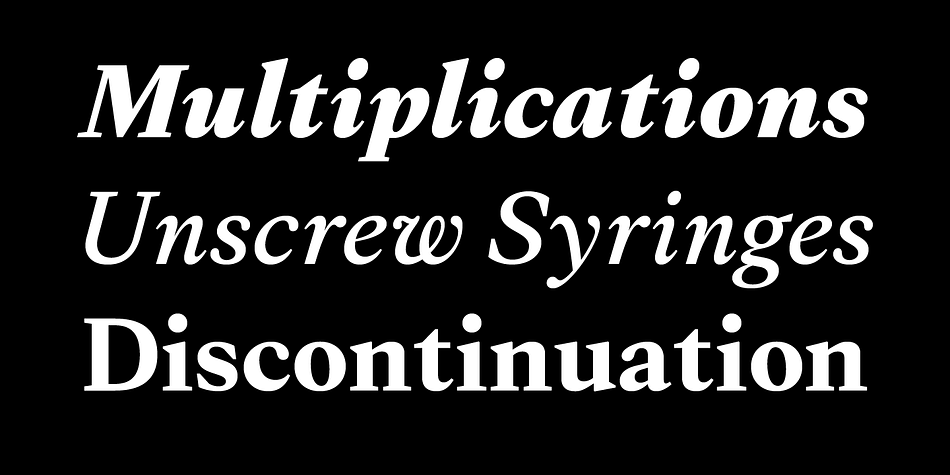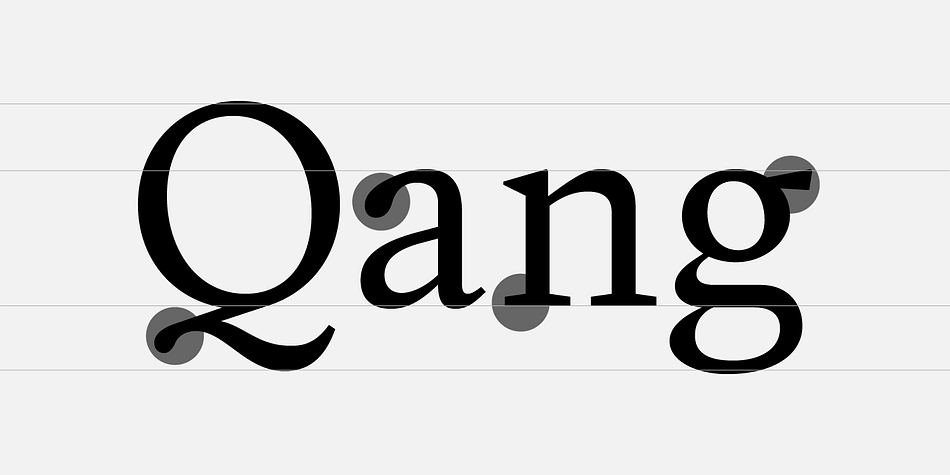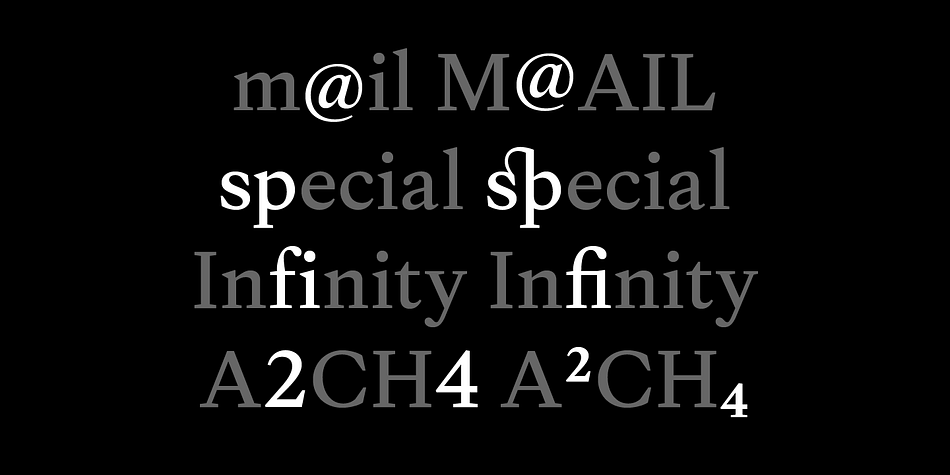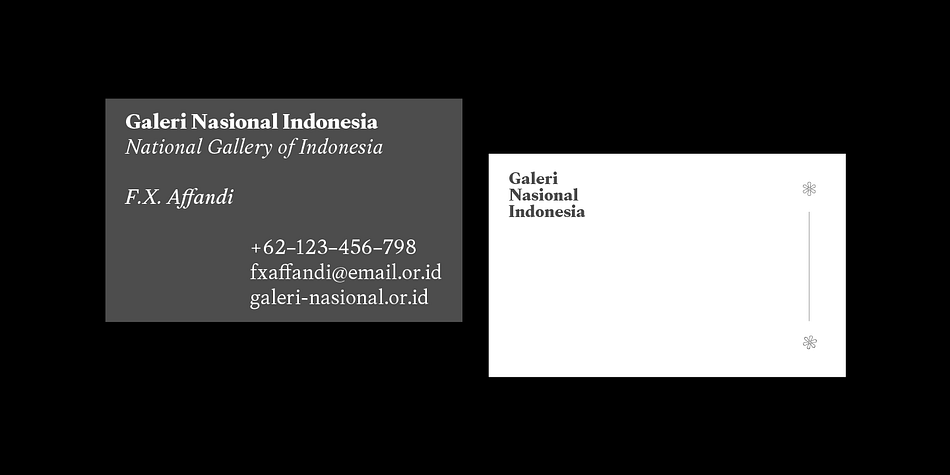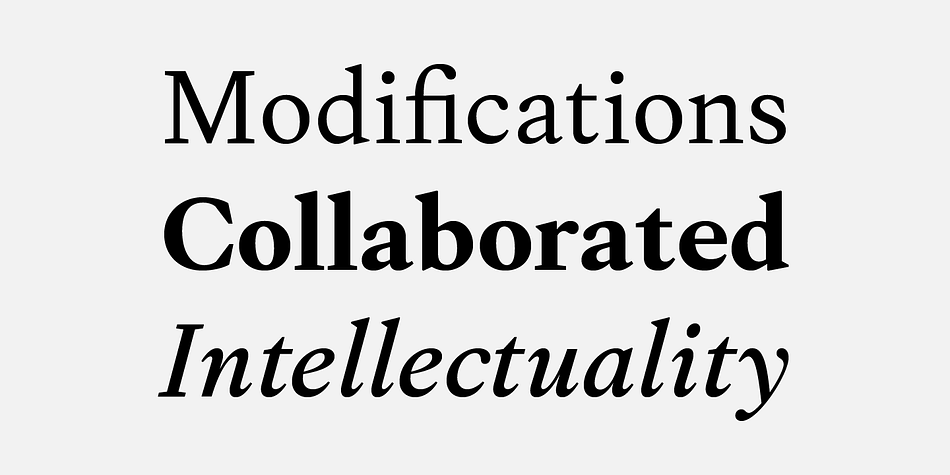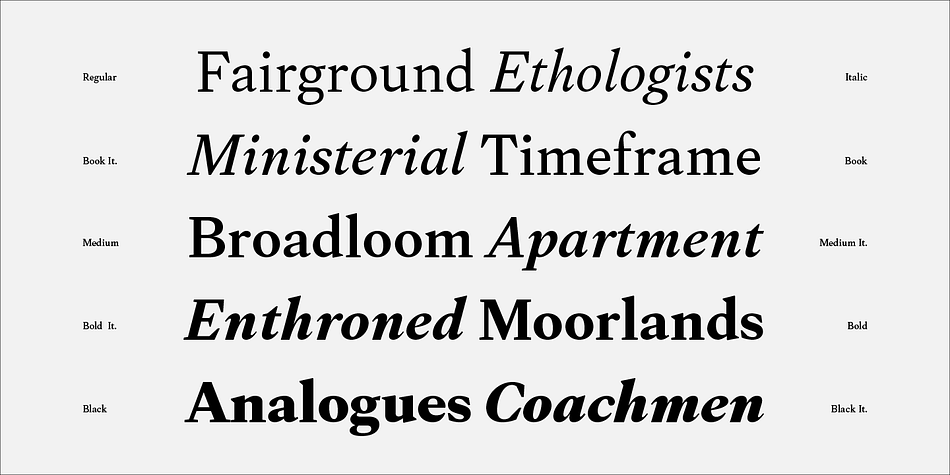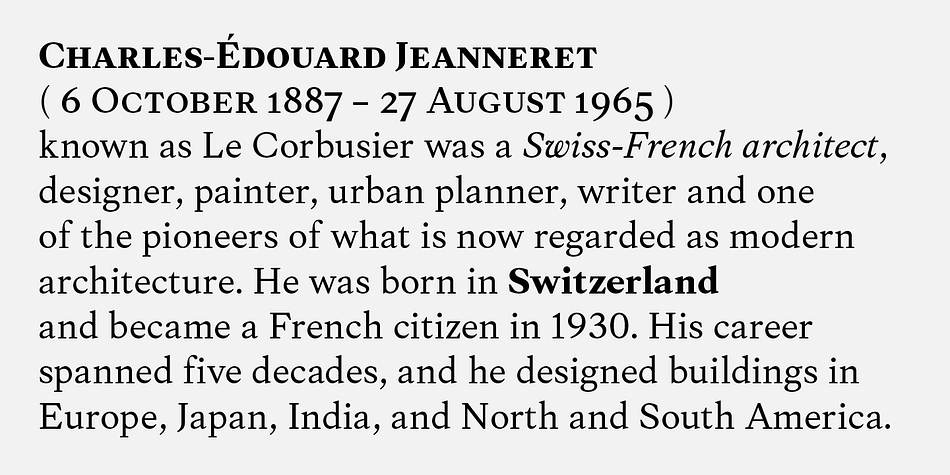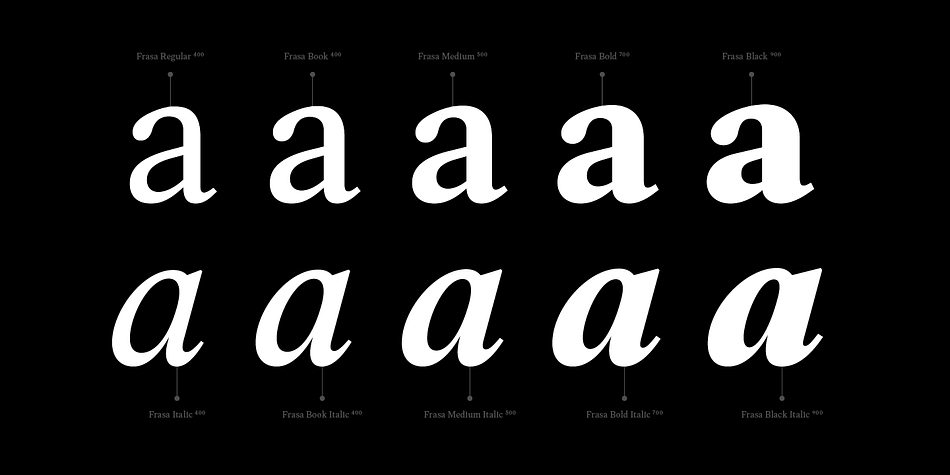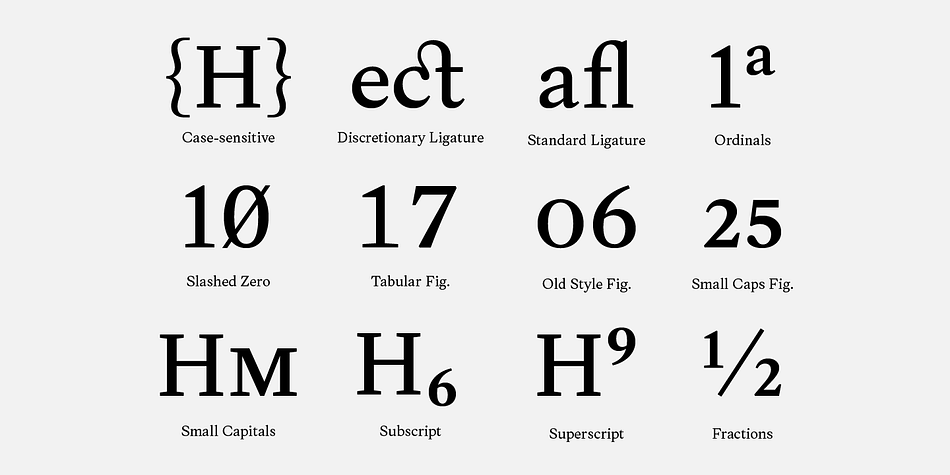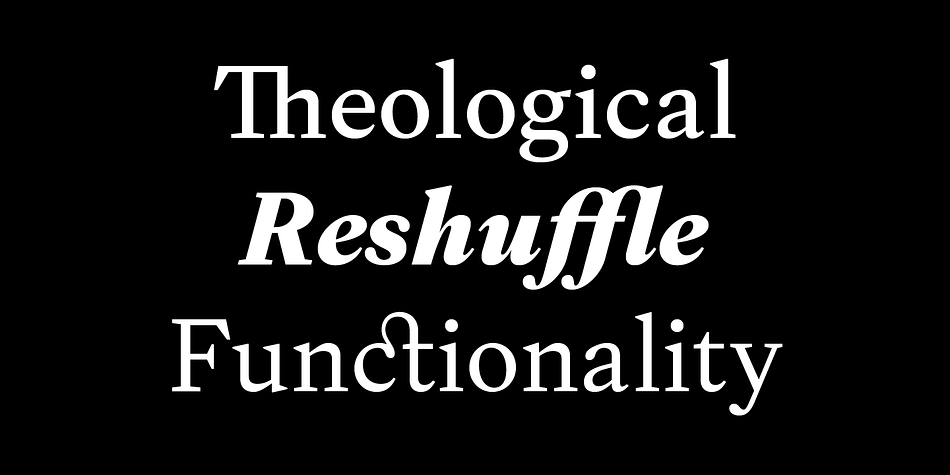
Designed by Gumpita Rahayu, Frasa is a serif font family. This typeface has ten styles and was published by Tokotype.
Frasa is a contemporary serif family with traits that emerge from the charms of Caslon and touch of transitional style, the design delivers unique proportions to serve long-running small text and the firmness of its own form assisting as big type headline.
The devil is in the details, Frasa expressing the idea that the family defined by its tradition from its own forefathers through the small details exposing the personality of the typeface, such as pointy ball terminals and formidable shoulders.
The italic members also have their attractiveness, designed to humanize the form based on stylized and natural cursive style, this intended to emphasize the key points in a text context. Another feature of this type family added to meets standard typographic needs such as Small Capitals, Old Style Figures, Ligature, etc. In the end, Frasa typeface can stimulate to use as powerful design tools to create editorial and casual design style. In addition of that, couple of language support has extensively added to support most European accents.